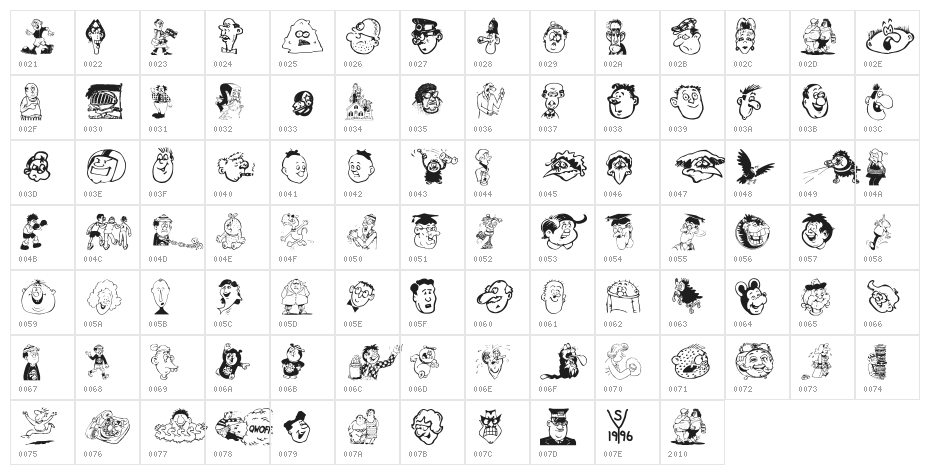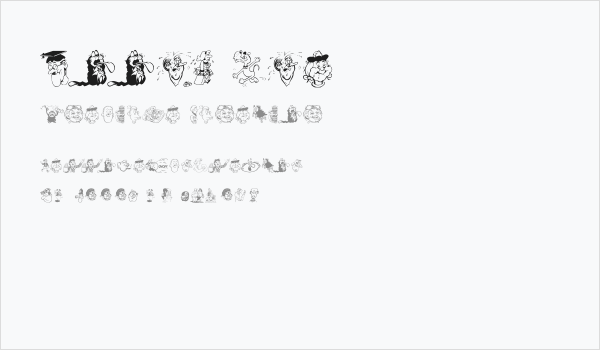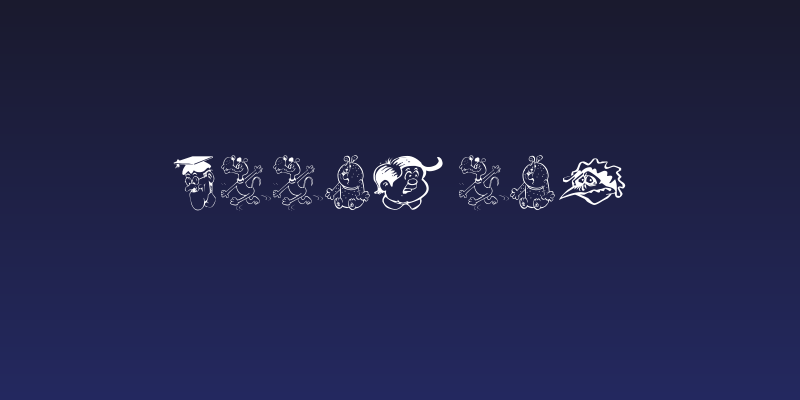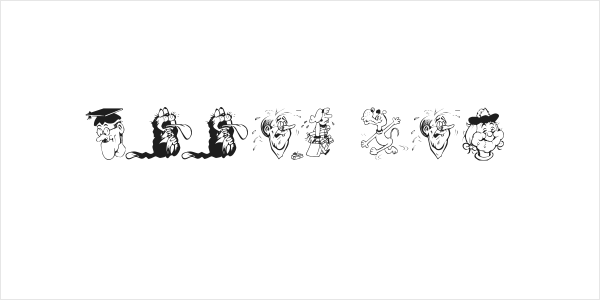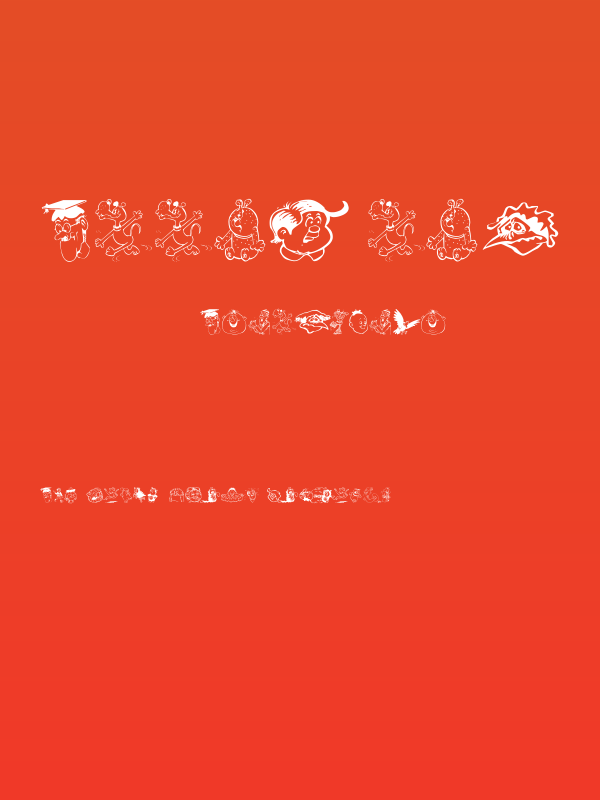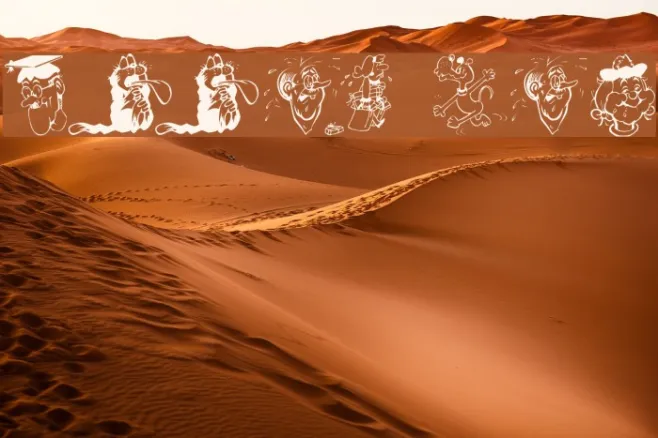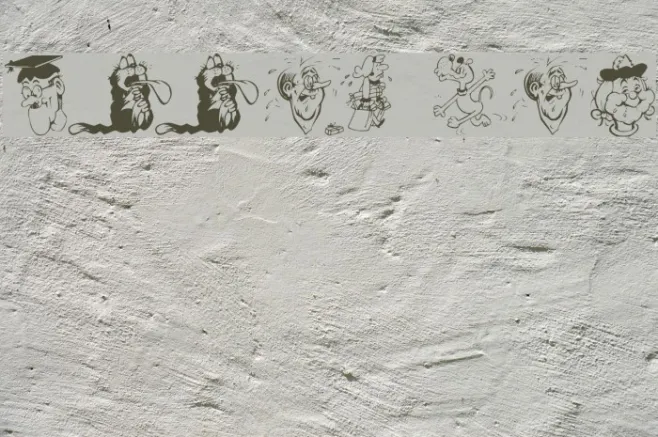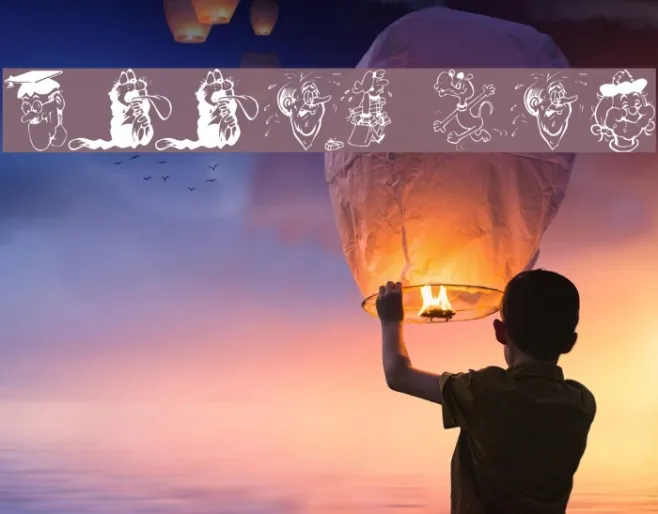
Toons One Font
Toons One Description
A highly decorative and playful collection of hand-drawn cartoon character illustrations, each glyph representing a unique, exaggerated face or scene rather than traditional letterforms. The style is whimsical, energetic, and varied, with bold outlines and expressive features.
| Overall Style | Playful, Whimsical, Cartoonish, Decorative |
| Use Case | Logos, Headlines, Posters, Themed event materials |
| Proposed Projects | Children’s books, comic strips, playful posters, party invitations, novelty branding, and educational materials. |